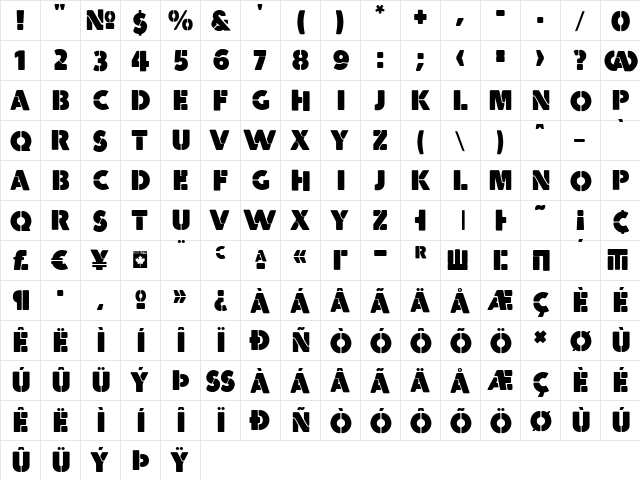
Quanta East Regular
Design Context for Quanta East Typeface
Quanta East is a composed and adaptable typeface that performs quietly and consistently across a wide range of design contexts.